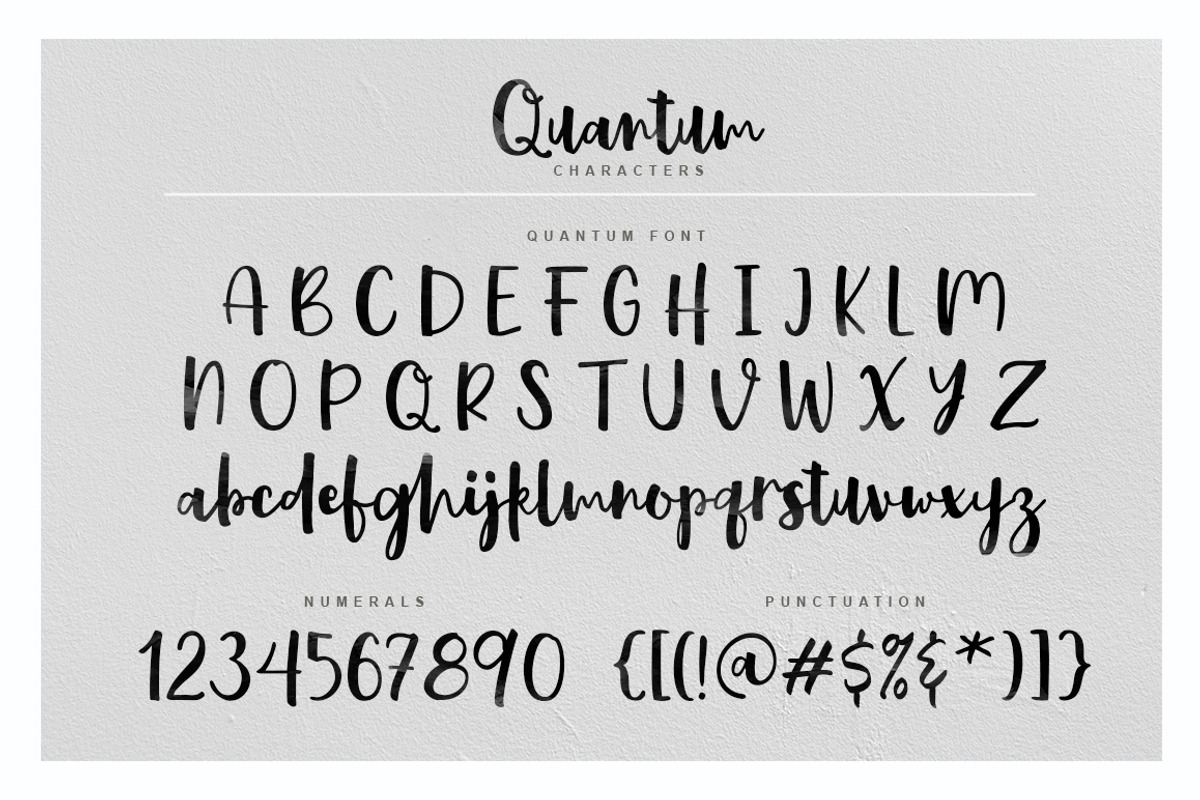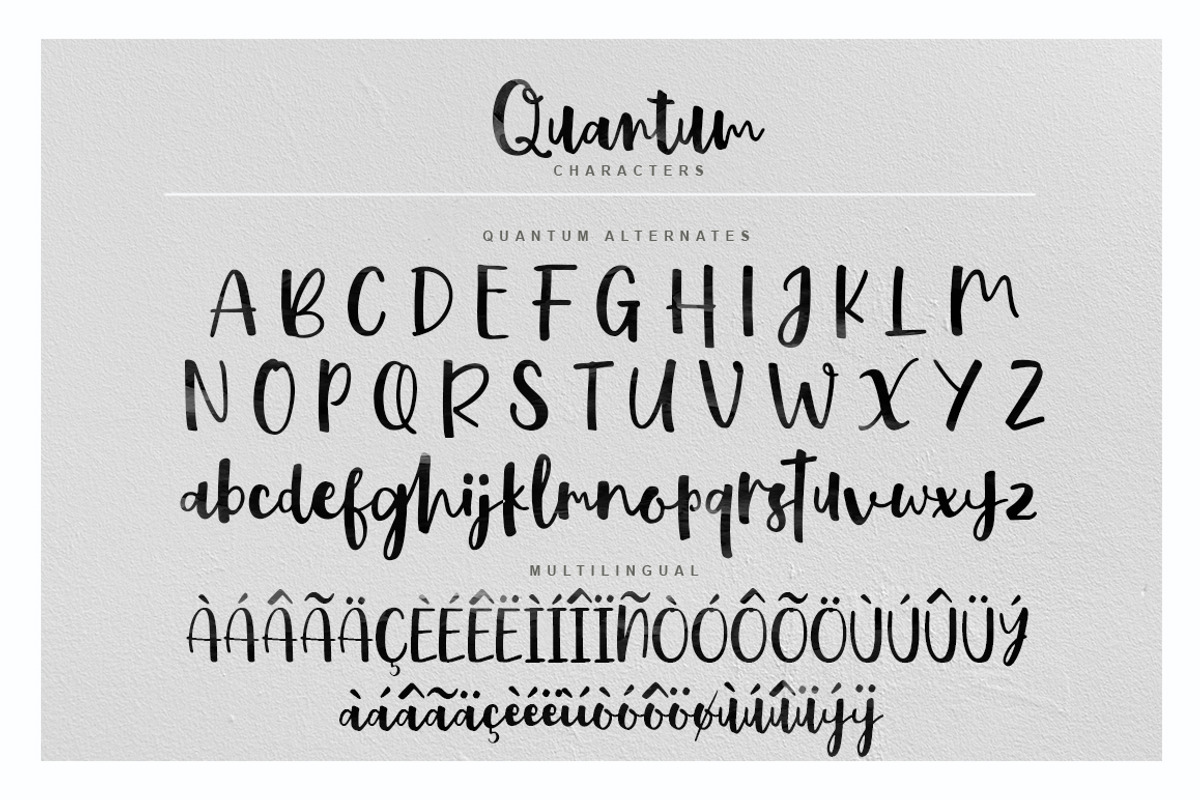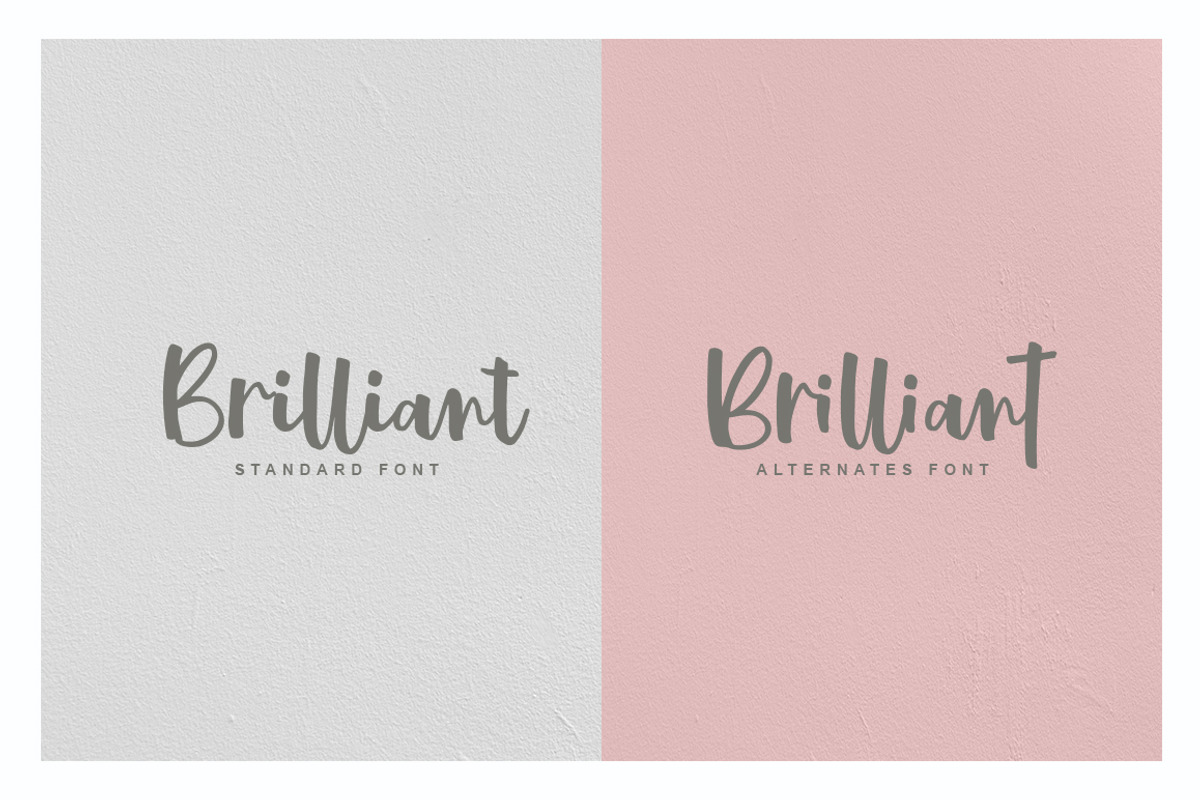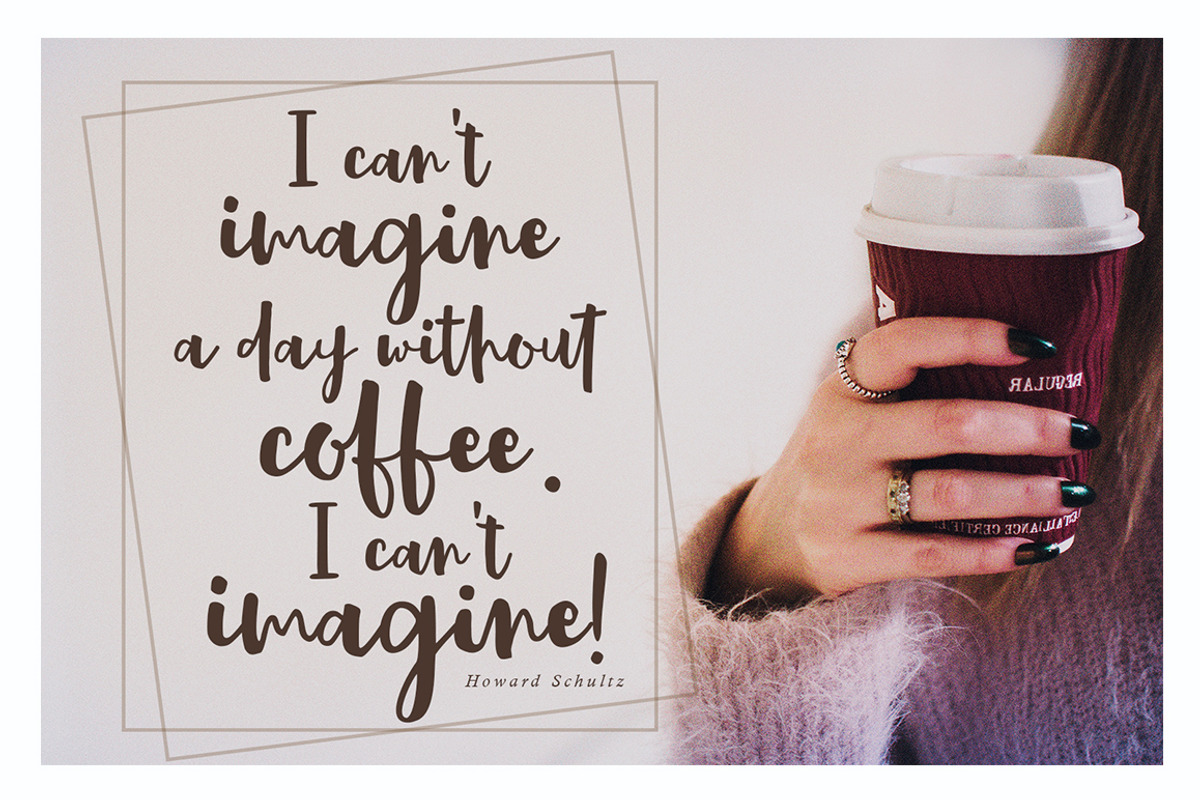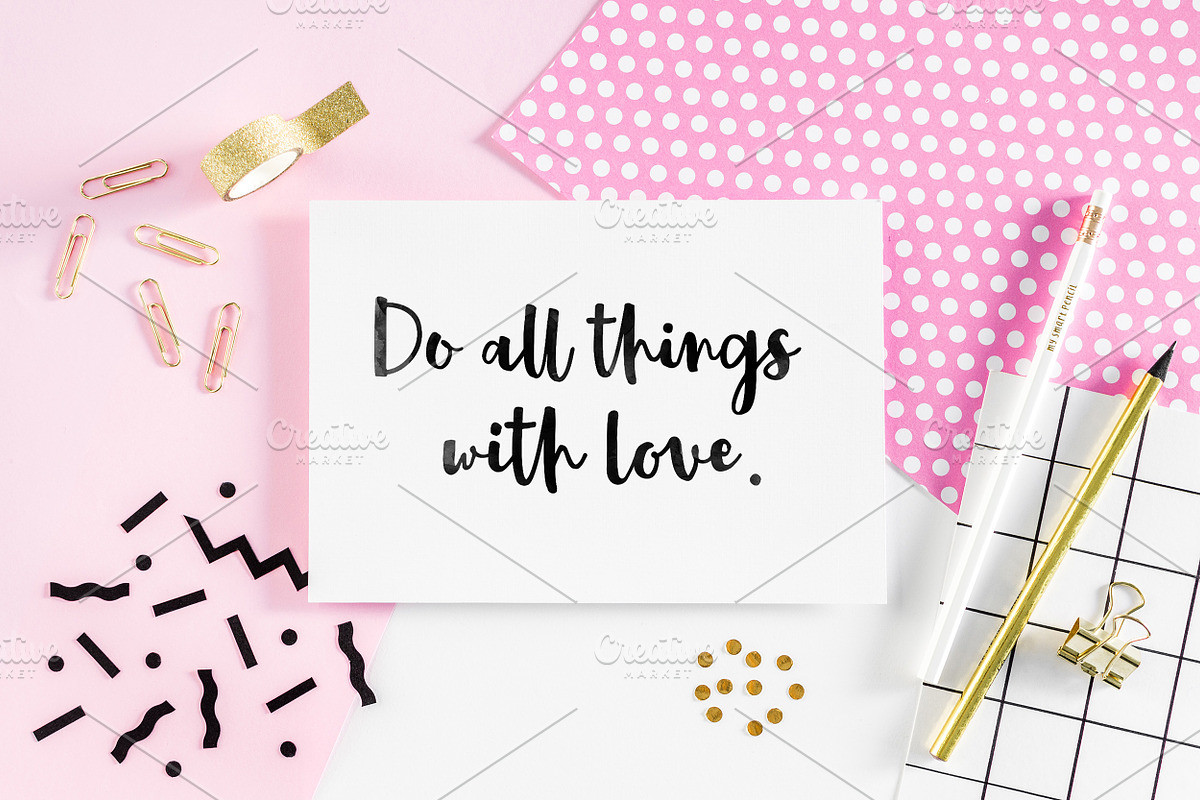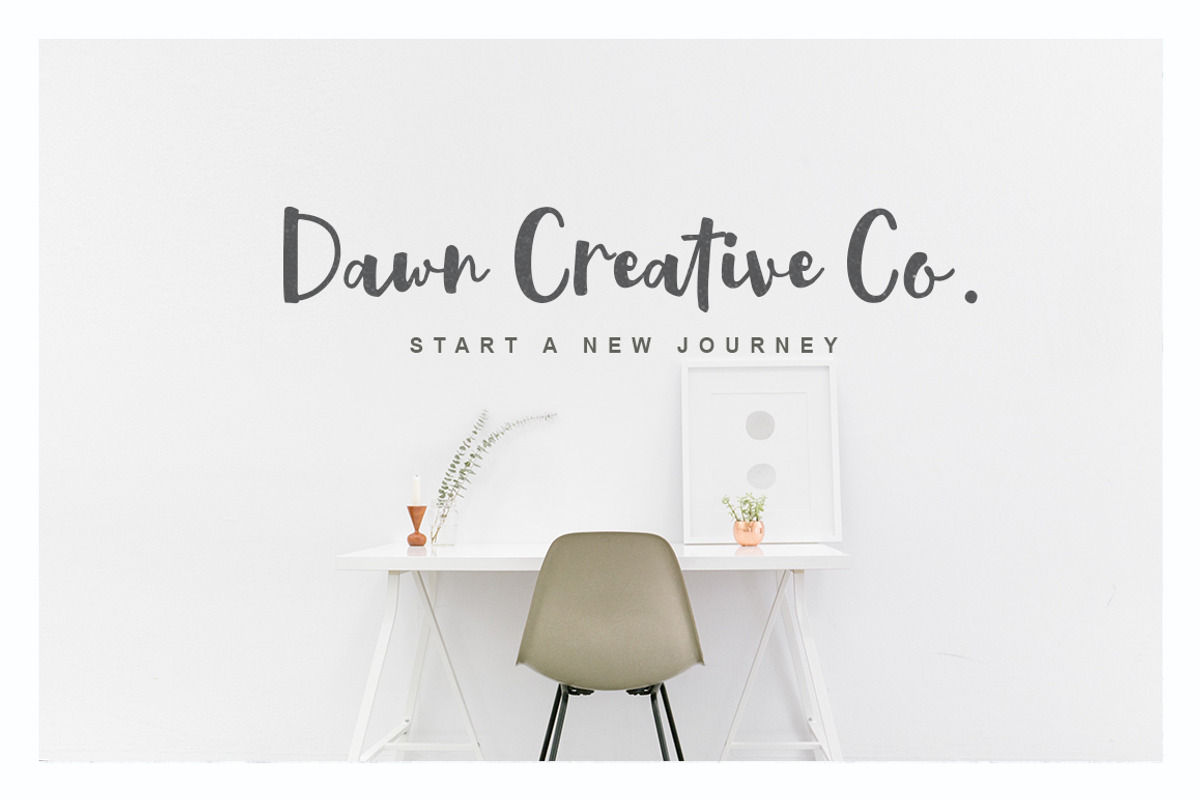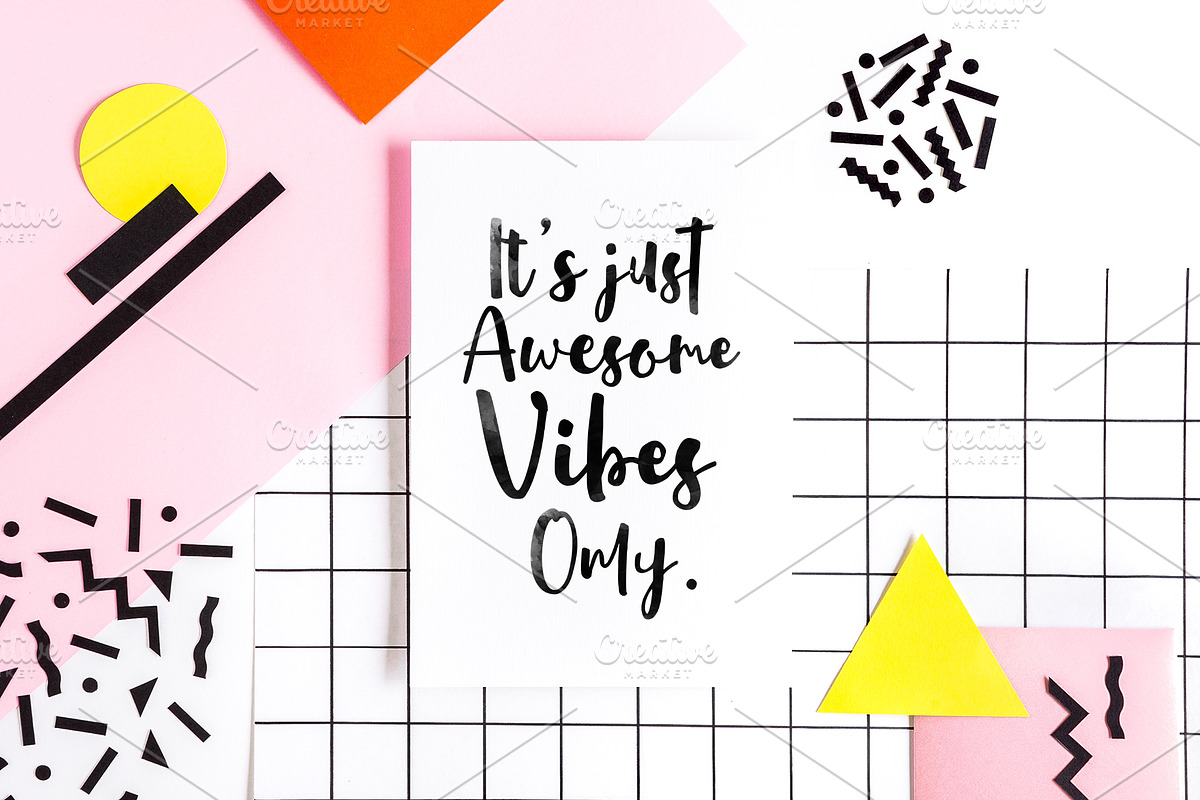
Quantum Font
Quantum! A beautiful collection of hand-lettered modern calligraphy fonts.
It's made by decorative characters and a dancing baseline! So beautiful on invitation like greeting cards, branding materials, business cards, quotes, posters, and more design concept!
- Unique ligatures
- Stylistic sets
- Basic Latin A-Z and a-z
- International Symbols include
- Punctuations